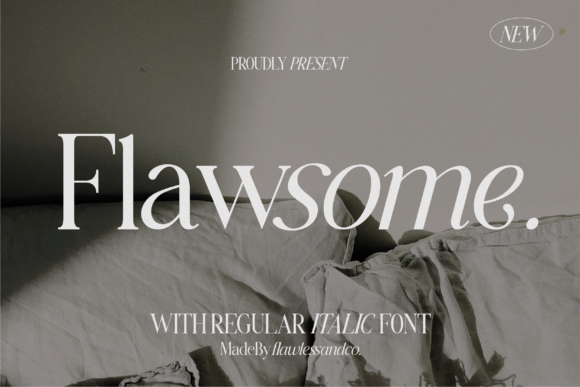
Introducing Flawsome Font, the perfect serif font for your wedding signs and beyond! Crafted by Flawless And Co, this stylish and modern font combines traditional serif elements with contemporary design features, resulting in a truly unique and eye-catching font.
Flawsome Font is characterized by its clean and elegant lines, coupled with unique and imperfect details that give it a handcrafted look. This font is perfect for adding a touch of sophistication and elegance to any design project, and is particularly ideal for use in branding, logos, headlines, titles, and more.
Whether you're a professional designer or just looking to elevate your DIY projects, Flawsome Font is an excellent choice. Its versatility and adaptability make it a go-to font for a wide range of applications, and its emotive qualities are sure to resonate with anyone who appreciates the beauty of well-crafted typography.
With its subtle yet impactful design elements, Flawsome Font is a font that truly stands out. So why settle for boring and uninspired typography when you can elevate your design projects with this stunning font? Download Flawsome Font today and take your designs to the next level!